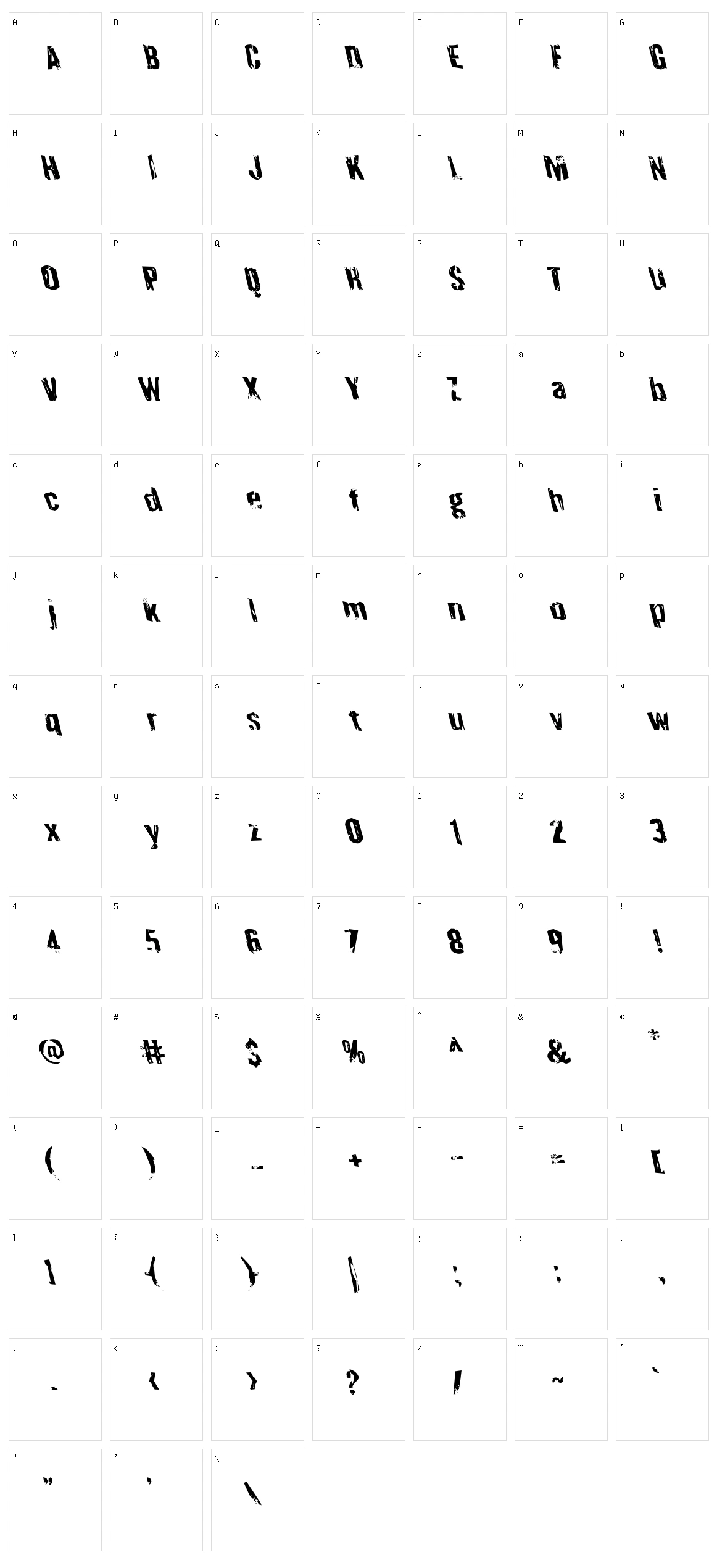
The free font Quarrystone is carefully designed by Iconian Fonts, showcasing a thoughtful balance of creativity and usability and falls under the Destroy font style. When you download the ZIP file, it contains only 904.02 KB of font files, making it lightweight and quick to download. Please review the license details below to understand permitted usage and distribution rights. If license information is not available, we recommend using this font for personal projects only or contacting the author directly for commercial usage permissions.
This font comes with the following 12 versions: Regular, Italic, Condensed, Condensed Italic, Expanded, Expanded Italic, 3D, 3D Italic, Outline, Outline Italic, Leftalic and Rotalic.